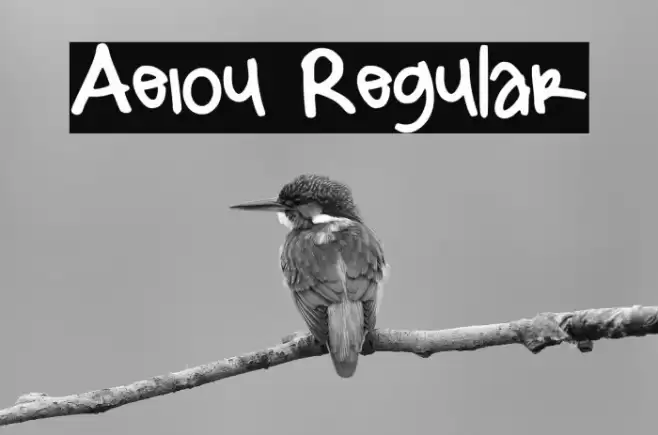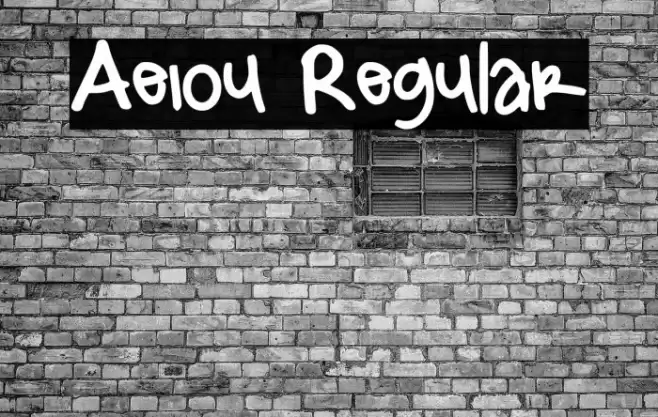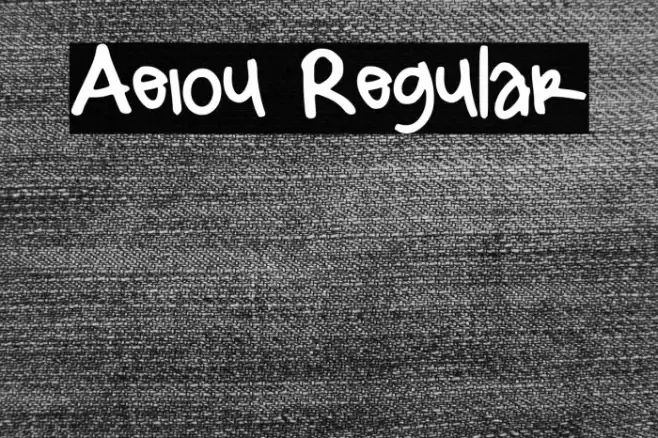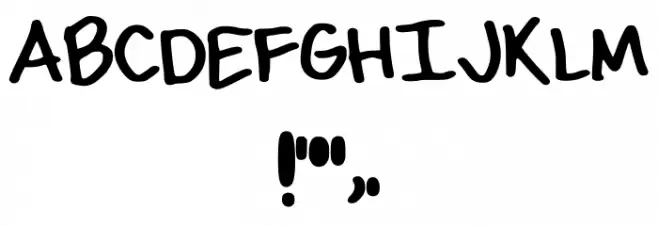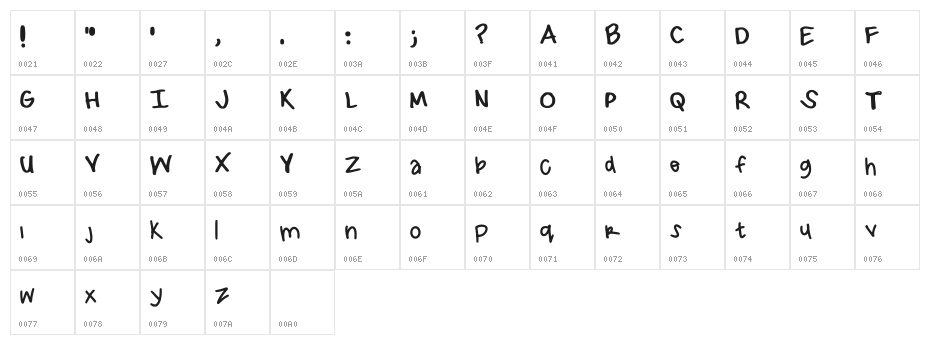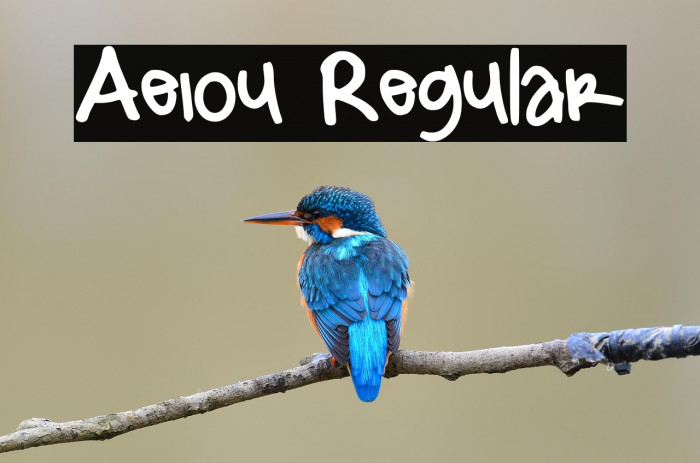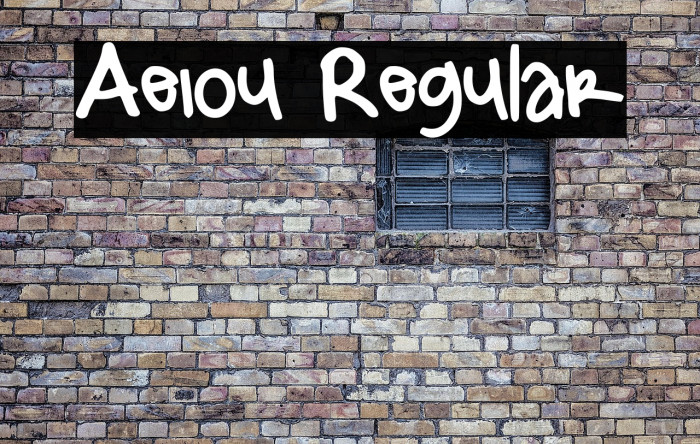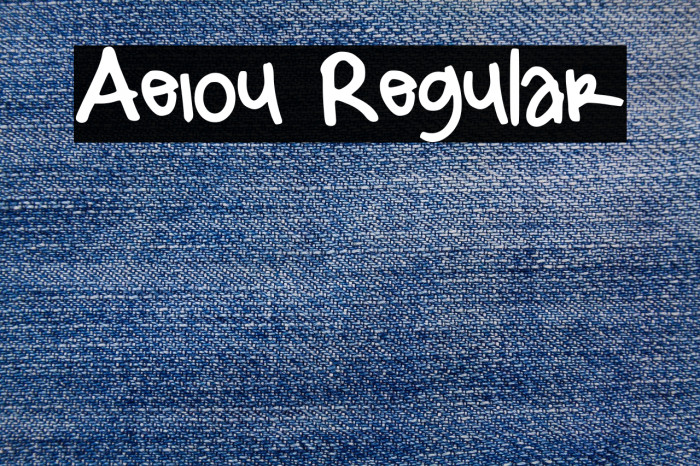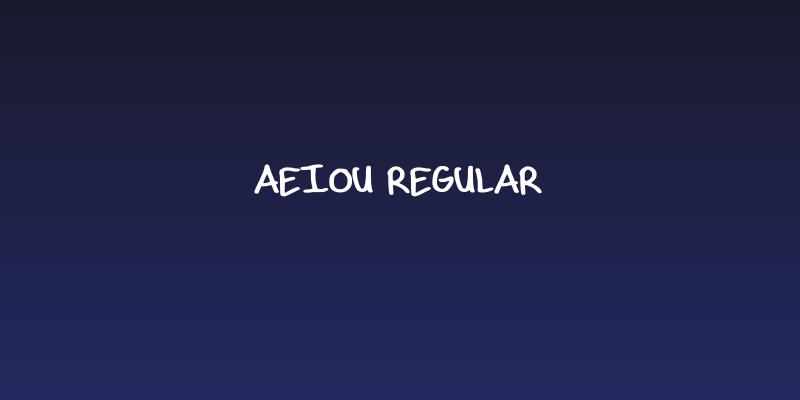
Aeiou Regular Font
Aeiou Regular Description
This font features a playful and casual handwritten style, characterized by its rounded and slightly irregular letterforms. The uppercase and lowercase letters maintain a consistent flow, giving it a friendly and approachable appearance. The strokes are moderately thick, contributing to a bold presence without being overwhelming. The font includes a full set of uppercase and lowercase letters, numerals, and a selection of special characters. Its informal style makes it suitable for creative projects that require a personal touch.
A playful, handwritten font with rounded, irregular letterforms from Regular fonts.
- Proposed Projects: Ideal for greeting cards, children's books, casual branding, and social media graphics.
- Overall Style: Casual
- Use Case: Logos, Headlines, Informal text